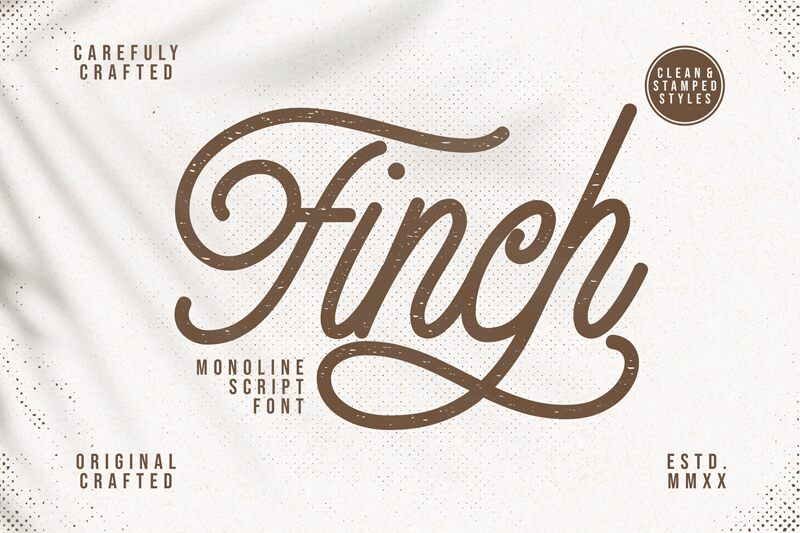
Finch! A monoline script font with 2 styles, clean and stamped. Finch font is perfect for branding, logotype, apparel, T-shirt, Hoodie, product packaging, quotes, flyer, poster, etc.
1. Uppercase and lowercase characters
2. Supports international languages
3. Numerals, punctuations, titling, stylistic alternates, and ligarures
6. Multilingual support.